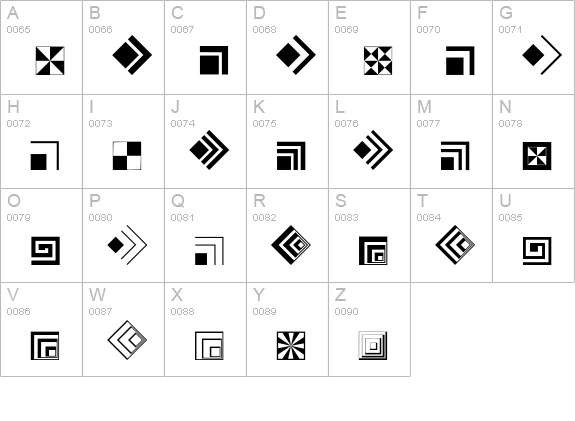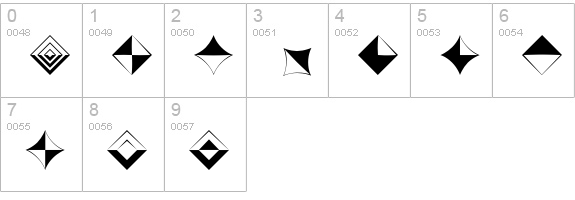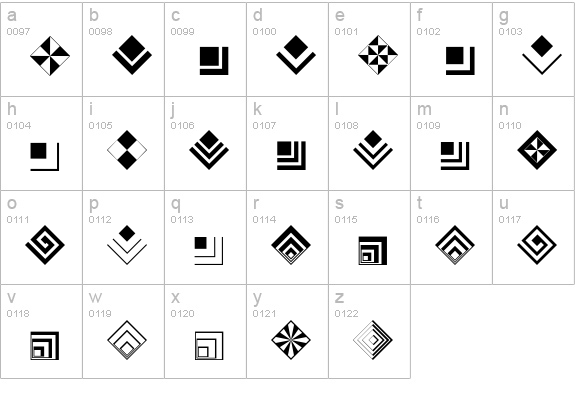
AltemusSquares Font Details
AltemusSquares is a modern and stylish font that exudes a sense of sophistication and creativity. Its bold and geometric square-shaped characters make a strong visual impact, making it perfect for eye-catching designs and branding projects. The clean lines and sharp edges of this font give it a contemporary and edgy feel, making it stand out from the crowd. What sets AltemusSquares apart is not only its striking appearance but also the fact that it is available for free! You can easily download this versatile font for your personal and commercial projects at FontsMarket.com. Whether you're working on a poster, logo, website, or any other design project, AltemusSquares will add a touch of modern elegance and flair. Don't miss out on this amazing opportunity to elevate your designs with this exceptional font that is just a click away.